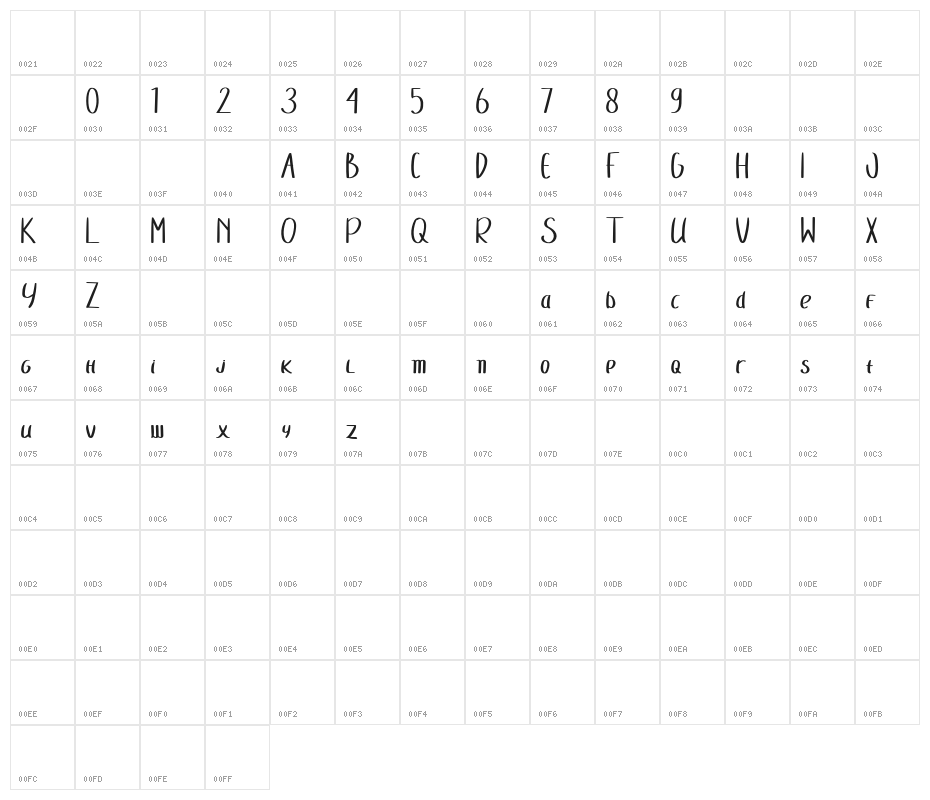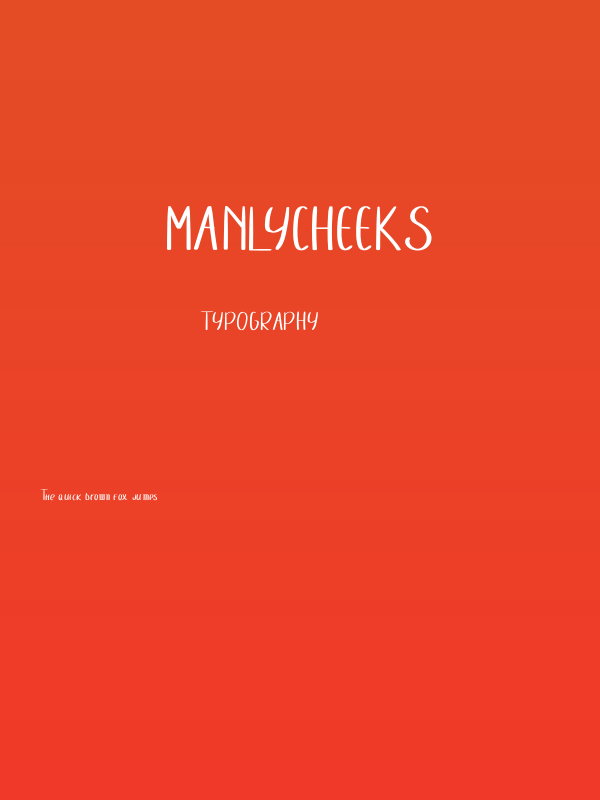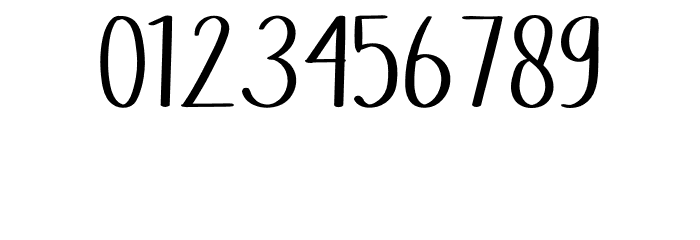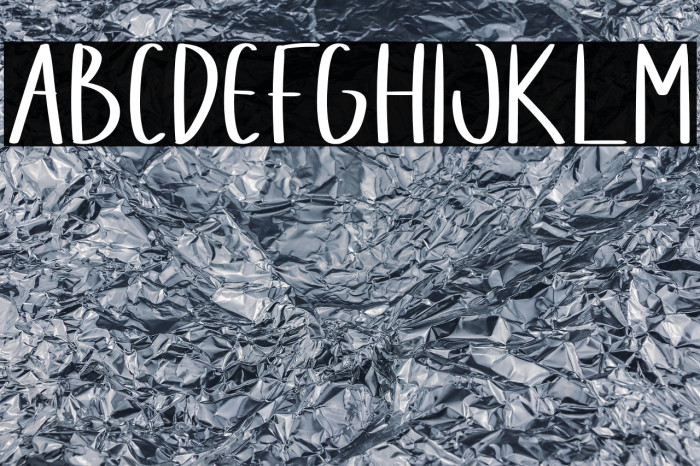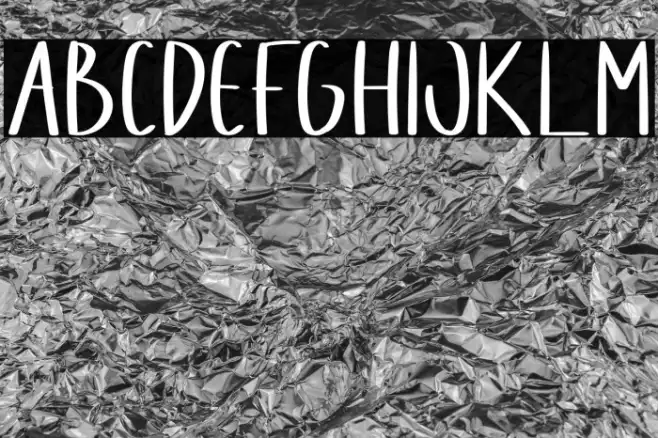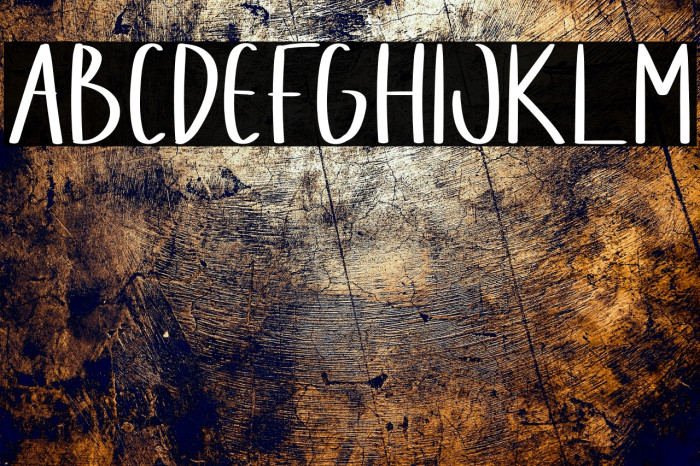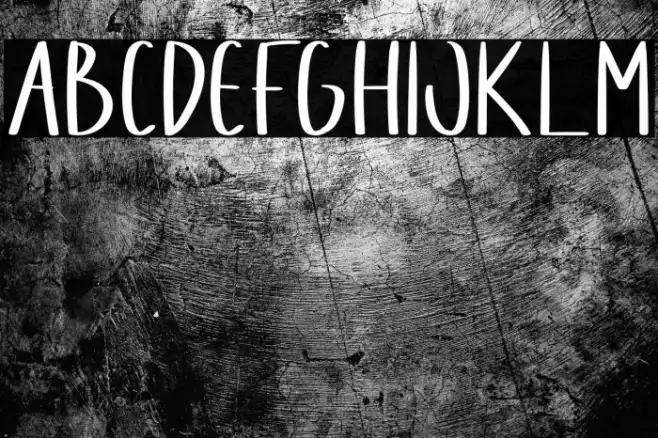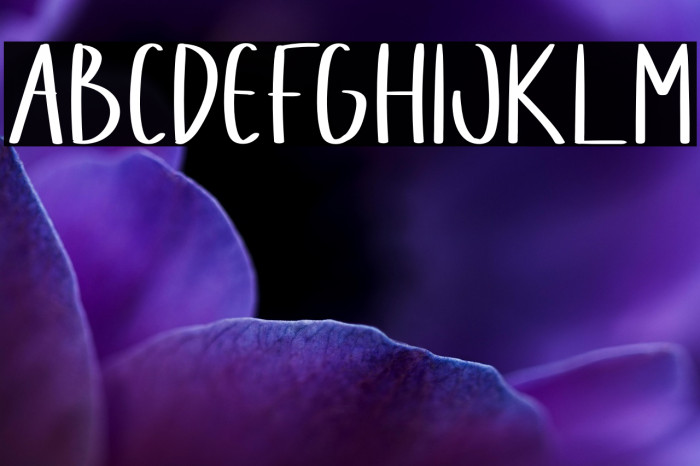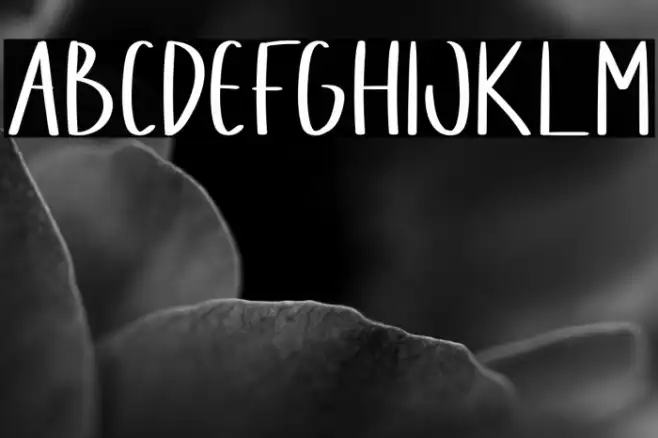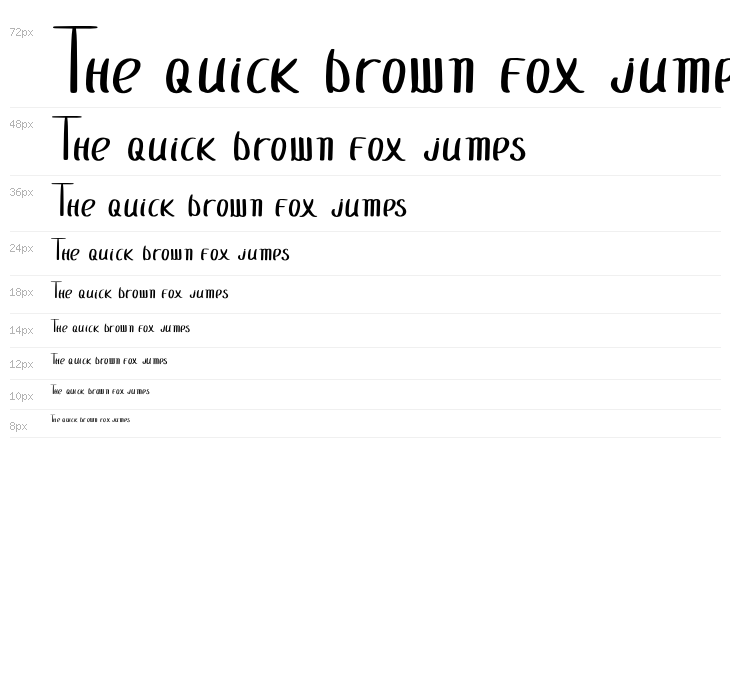
ManlyCheeks Font
ManlyCheeks Description
This font features a playful and whimsical style with a handwritten appearance. The characters are slightly elongated with a consistent stroke width, giving it a casual yet structured look. The uppercase letters are bold and prominent, while the lowercase letters maintain a uniform height, creating a harmonious balance. The numbers are clear and easy to read, matching the overall aesthetic of the font. Special characters are included, maintaining the same playful style. This font is ideal for projects that require a friendly and approachable feel.
| Use Case | Headlines, Logos, Social media graphics |
| Proposed Projects | Ideal for children's books, greeting cards, playful branding, and social media graphics. |